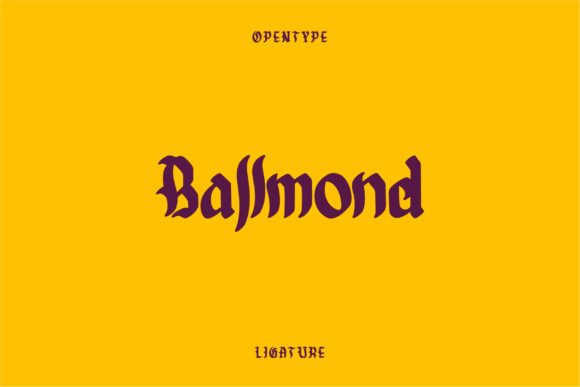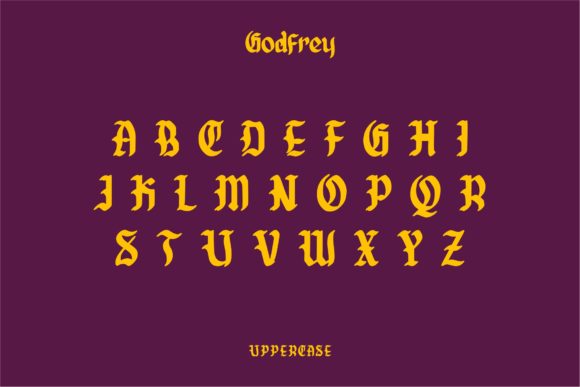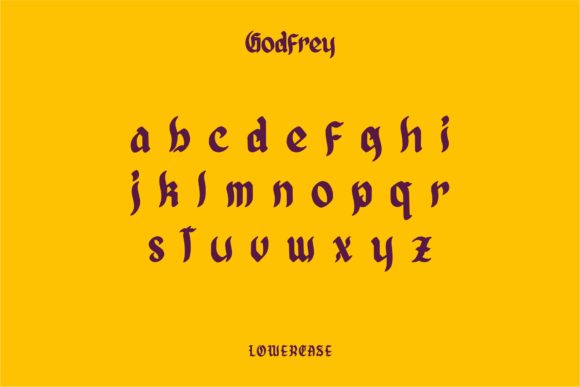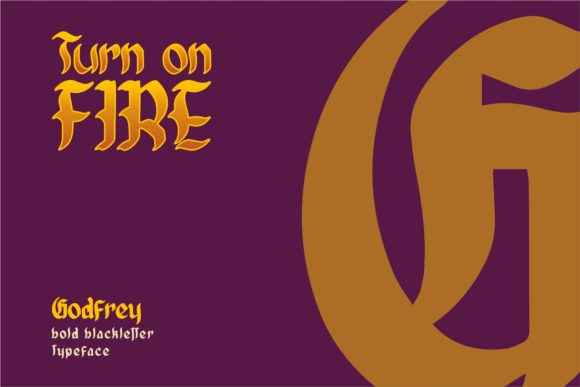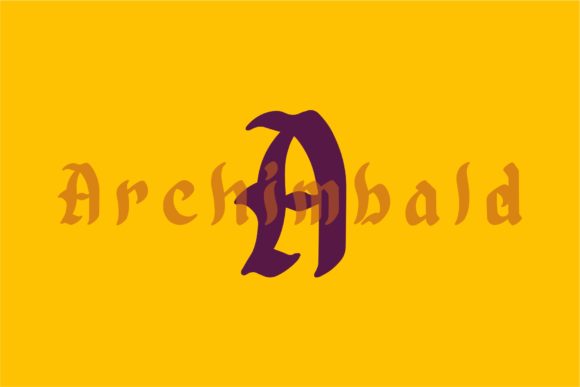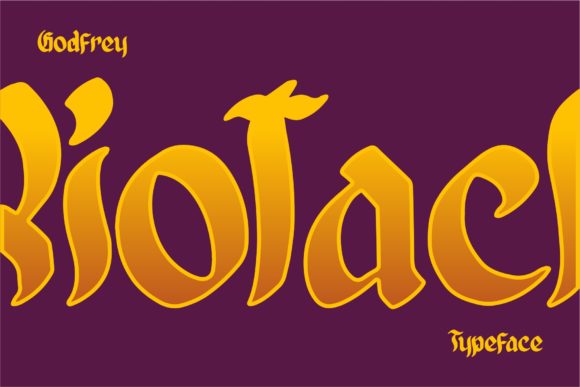
Introduction to Godfrey Font
Have you ever found yourself stuck in a creative rut, scrolling through font options, and suddenly, a particular style catches your eye? That’s exactly what happened to many designers when they stumbled upon the Godfrey Font. Its unique blackletter design makes it a standout choice for various projects, from eye-catching headlines to bold posters.
As a valuable design resource, the Godfrey Font offers high-quality typography that’s perfect for designers looking to add a touch of elegance and sophistication to their creative project. With its free download option and transparent background, you can seamlessly integrate it into your designs without any hassle.
Whether you’re working on a magazine layout, designing a t-shirt, or creating labels for your products, the Godfrey Font is an excellent choice to make your design stand out. Its versatility and unique style make it a must-have in any designer’s toolkit.
Key Features of Godfrey Font
- Features a unique, elegant design that sets it apart from other fonts
Honest Review: Godfrey Font
I recently had the chance to work with the Godfrey Font, a popular free download for designers. As a design resource, I was impressed with its high quality and versatility.
- ✨ Easy to use: The font comes with a transparent background, making it perfect for creative projects where you need to overlay text on images or videos.
- ✨ Versatile: The font family includes a range of styles, from bold to light, making it suitable for various design applications.
However, I did encounter a few limitations while using the Godfrey Font:
- ⚠️ Limited character set: The font only includes a basic set of characters, which can be restrictive for certain design projects.
- ⚠️ Not ideal for small text: The font’s large x-height can make small text appear blurry or hard to read.
Overall, I was pleased with the Godfrey Font’s performance in my creative project. While it has its limitations, it’s still a great free download for designers who need a high-quality font. If you’re looking for a reliable design resource, the Godfrey Font is definitely worth checking out.
Tips for Getting the Most Out of Godfrey Font
To get the most out of the Godfrey Font, try using it with a transparent background to create a clean and modern look. Experiment with different font sizes and styles to add depth and interest to your designs.
The Godfrey Font is perfect for a variety of creative projects, including: